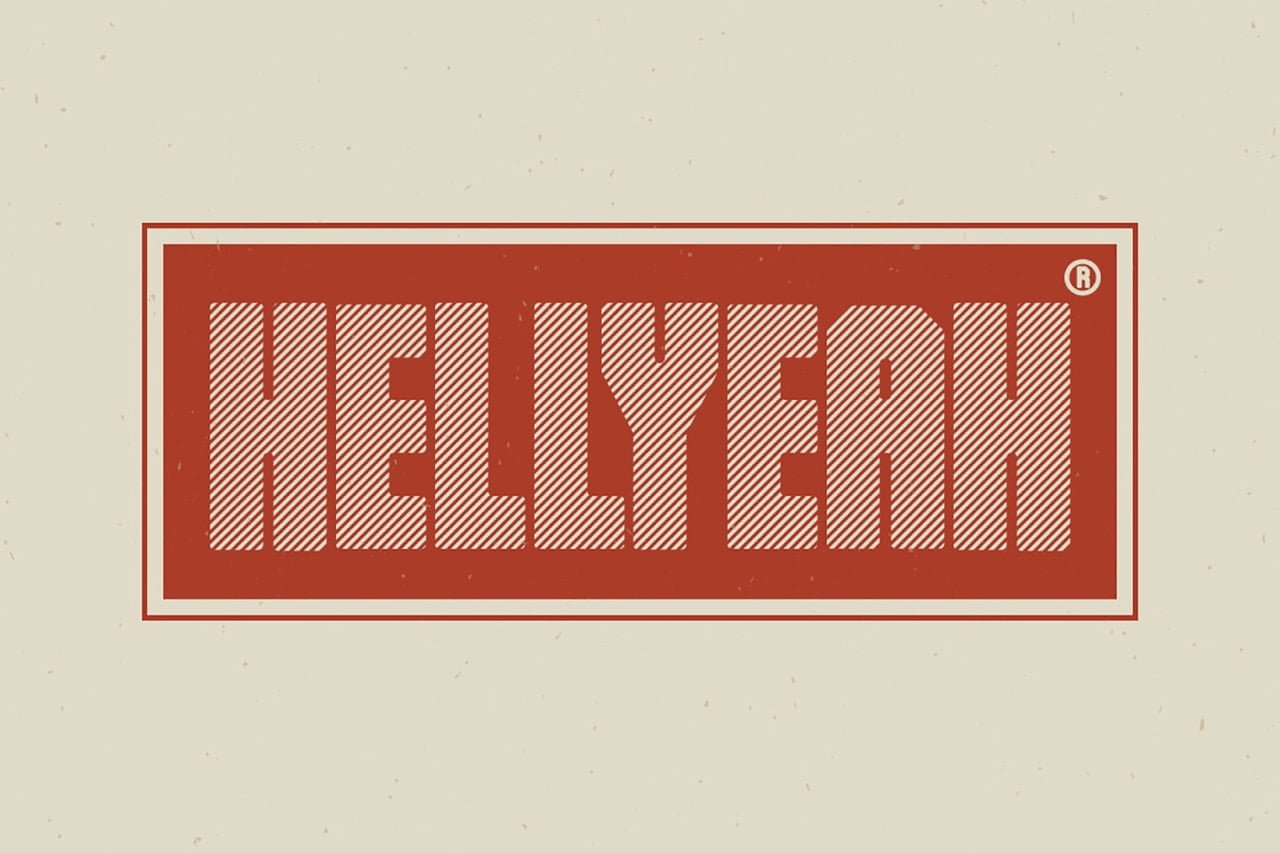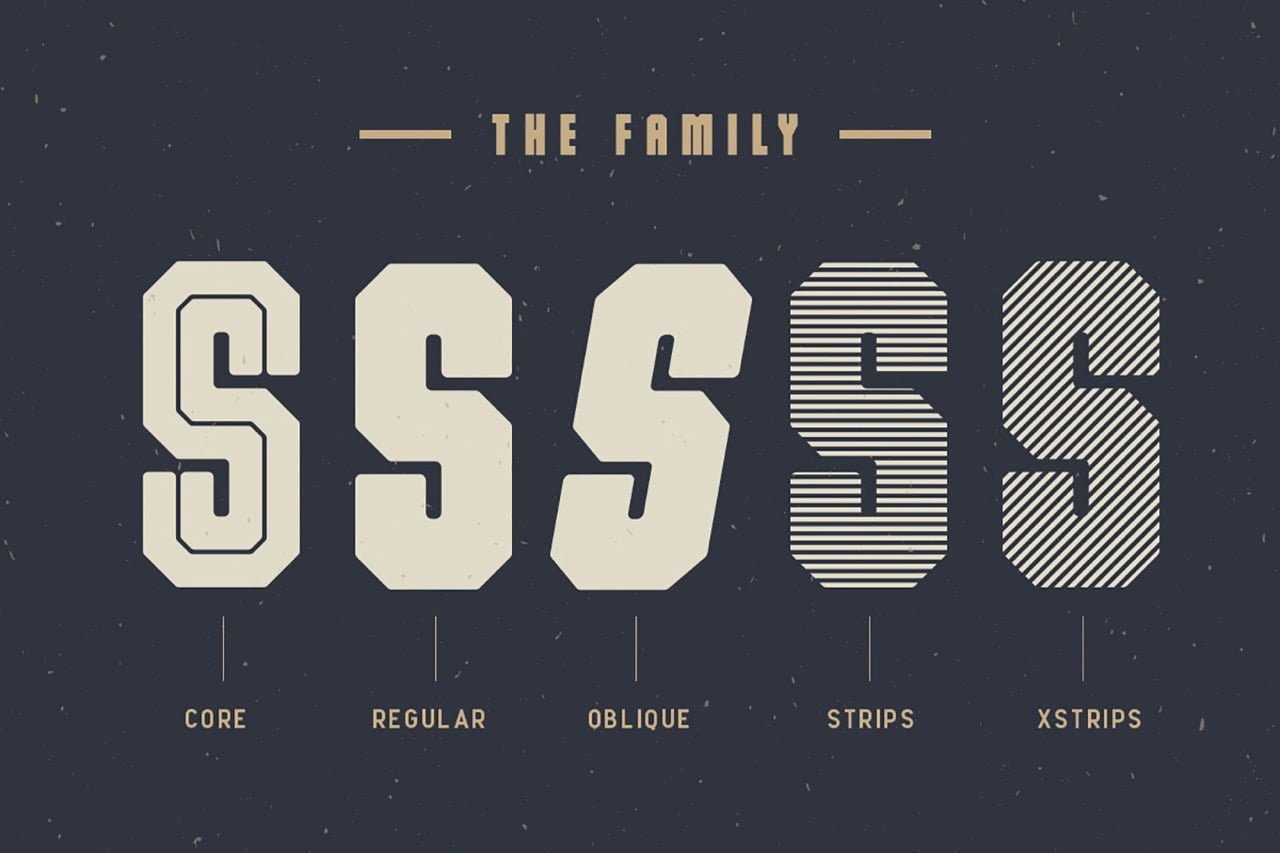
Dalmation Font Collection is a complete set of vintage, news­paper and poster inspired fonts. It’s the perfect way to add a touch of lo­cal charm to your designs. The beautiful typeface tapers at the end to create a soft feeling and make it looks unique.
• 5 Styles
• Basic Latin A-Z and a-z
• Numerals & Punctuation
• Multilingual Support for ä ö ü Ä Ö Ü …
Dalmation Vintage Font